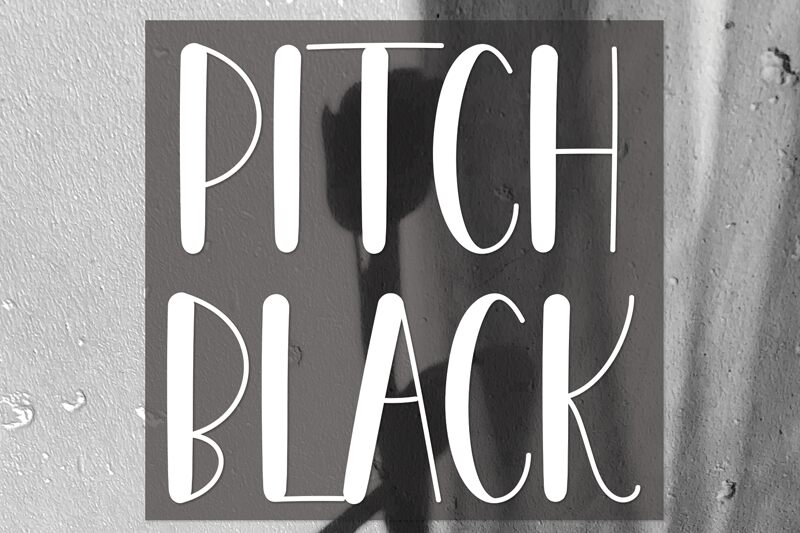
Pitch Black
Pitch Black by Scratchones offers a harmonious blend of personal touch and sleek design. With its handwritten style, this semi-light font exudes an organic charm that is both inviting and distinct. The extra-condensed width provides a modern edge, making it an excellent choice for designers looking to inject personality into their work without sacrificing elegance.
The unique character of Pitch Black shines in its ability to marry casual flair with structural precision, capturing attention in branding, editorial designs, and sophisticated invitations alike. This font’s contemporary aesthetic ensures it stands out in a variety of creative projects, from digital content to print media. Embrace the allure of Pitch Black for a stylish statement that resonates with clarity and character.